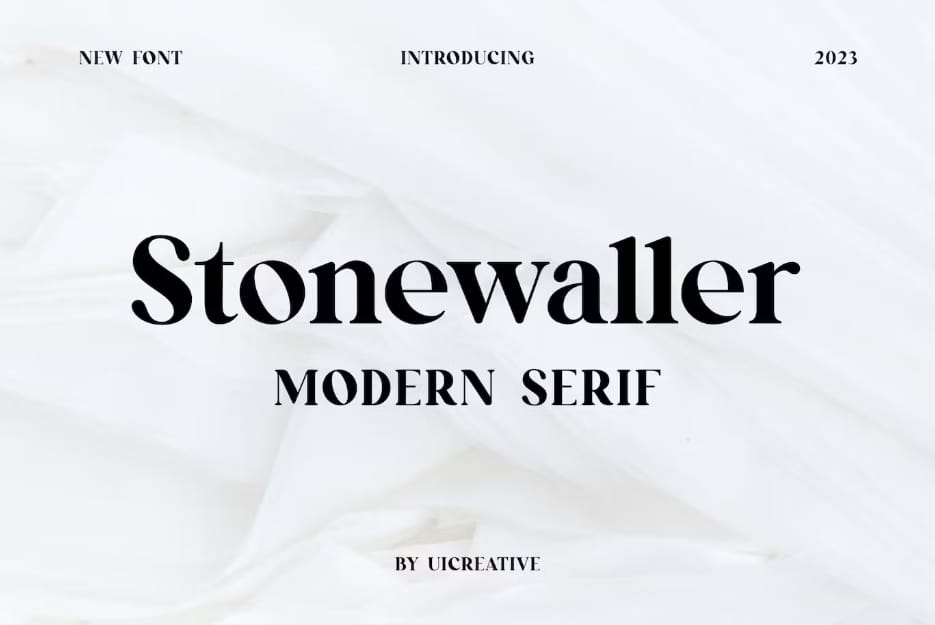
Stonewaller Font
Our new product is called Stonewaller Font. This font, like a modern Serif should, has a charming and elegant feel. Ideally, this font could be used in a wide range of projects such as one’s own signature, stationery, logos, weddings Quotes on paper, whether magazine or book covers, website titles and slogans or even as clothing labels and identification tape for packaging design. In addition, fashion-related branding or editorial design For display advertising. Display nboth masculine and feminine.
Stonewaller Modern Serif Font